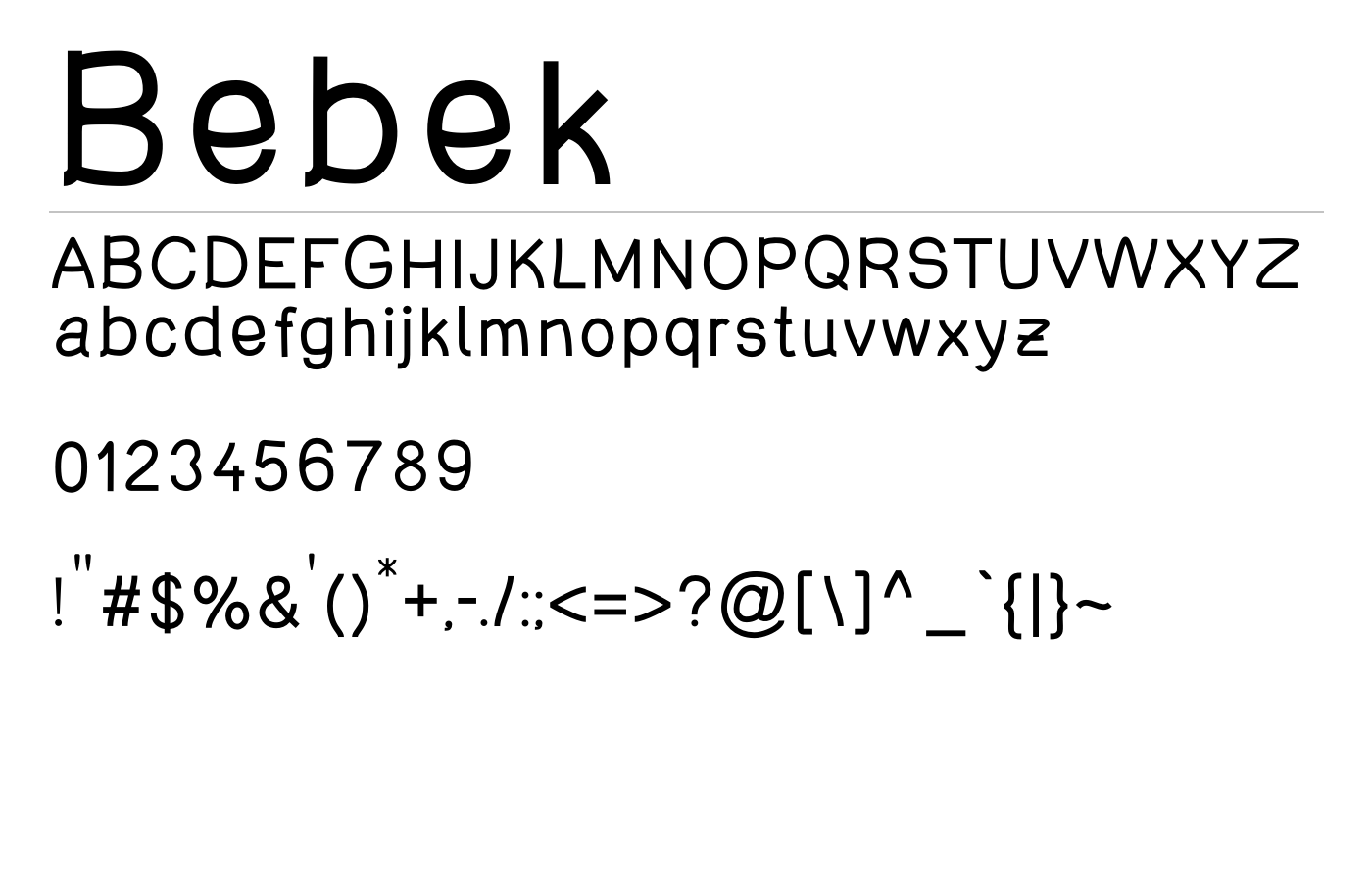
Bebek is a unique sans serif font with a playful and slightly quirky character, featuring a medium weight and relatively tall x-height that ensures readability. Its letterforms mix rounded and angular strokes with subtle irregularities, giving it a friendly, approachable feel that works well for informal branding, children's content, and creative projects. This font shines in display settings and short texts where personality and charm are desired without sacrificing clarity.